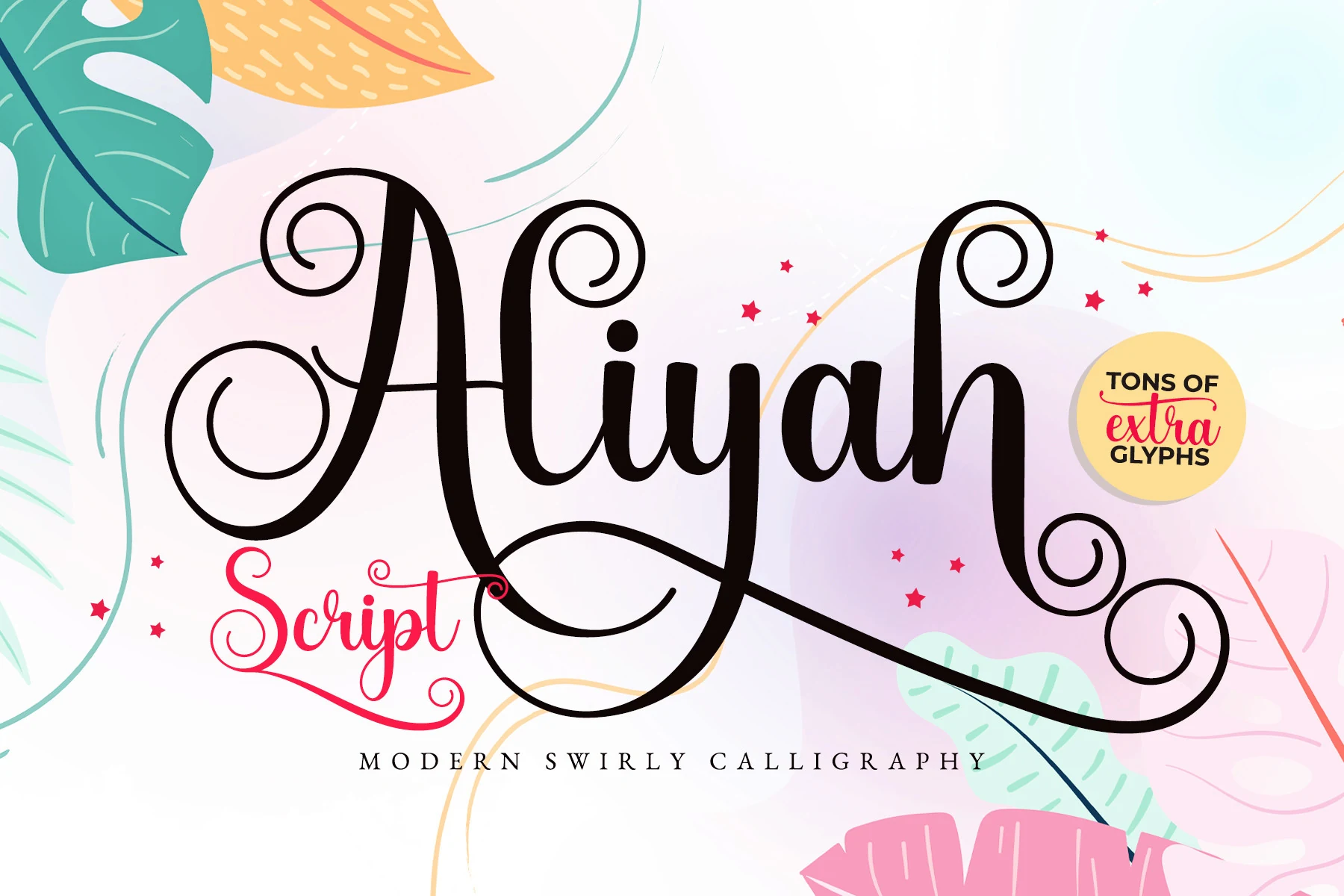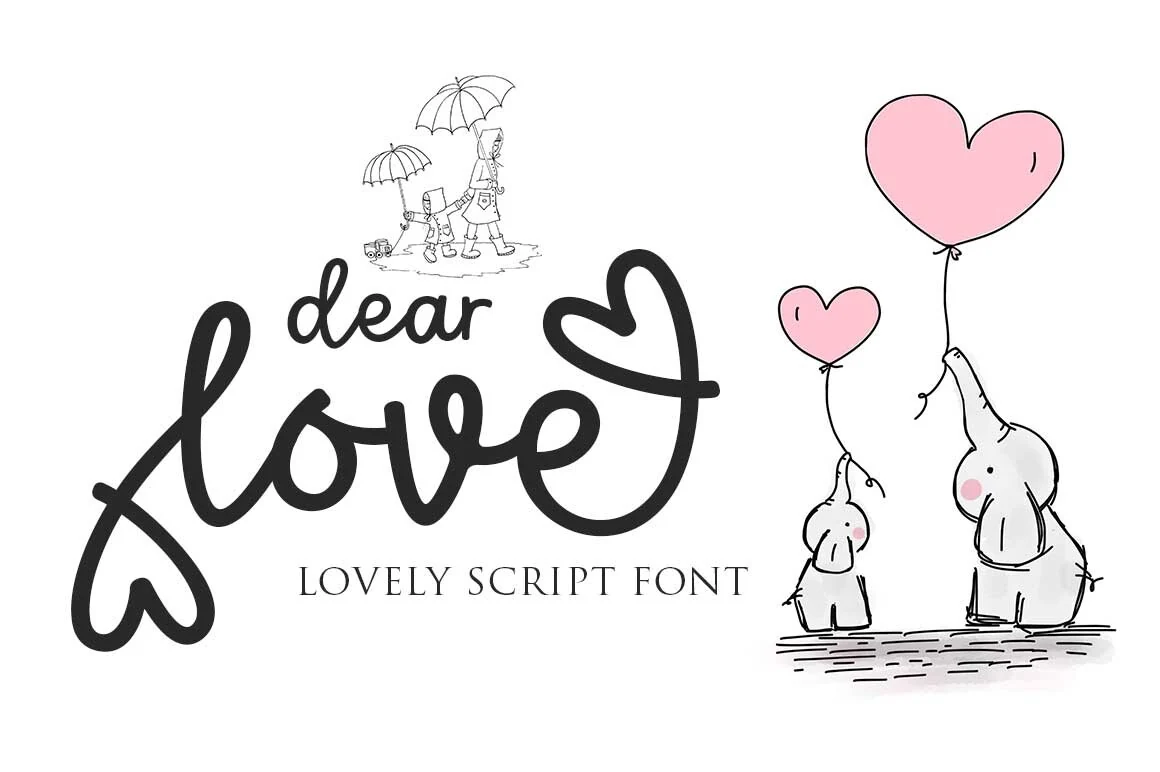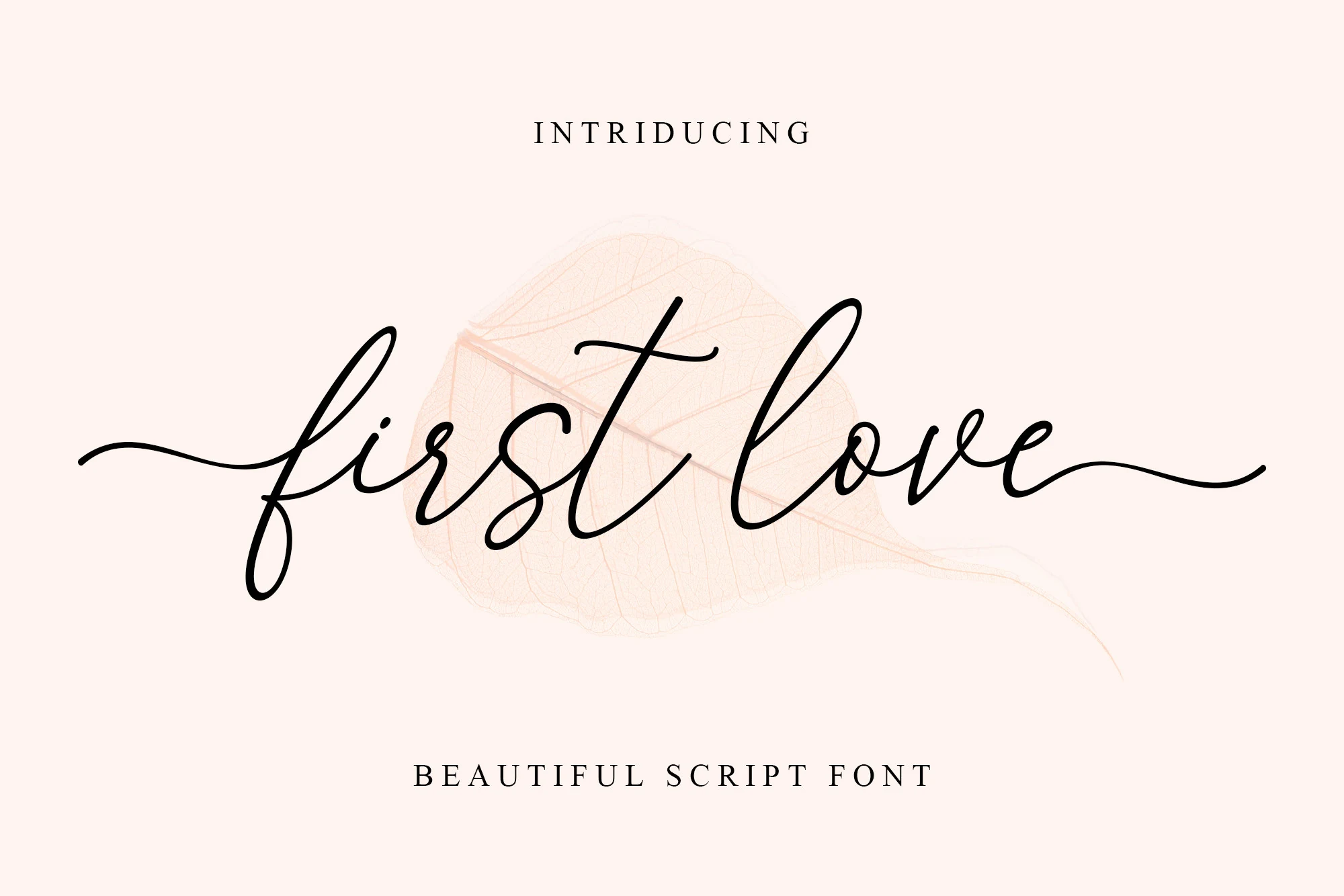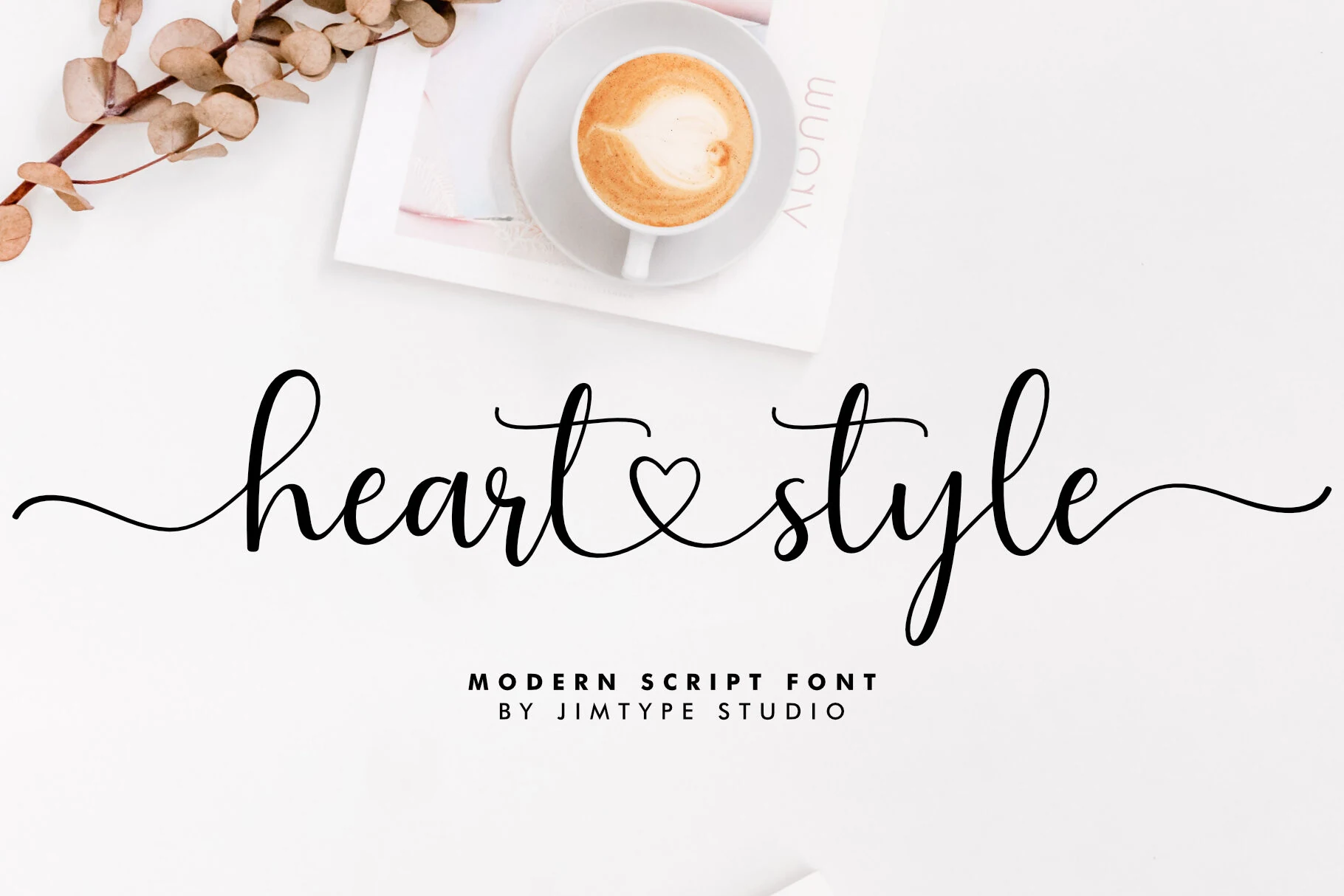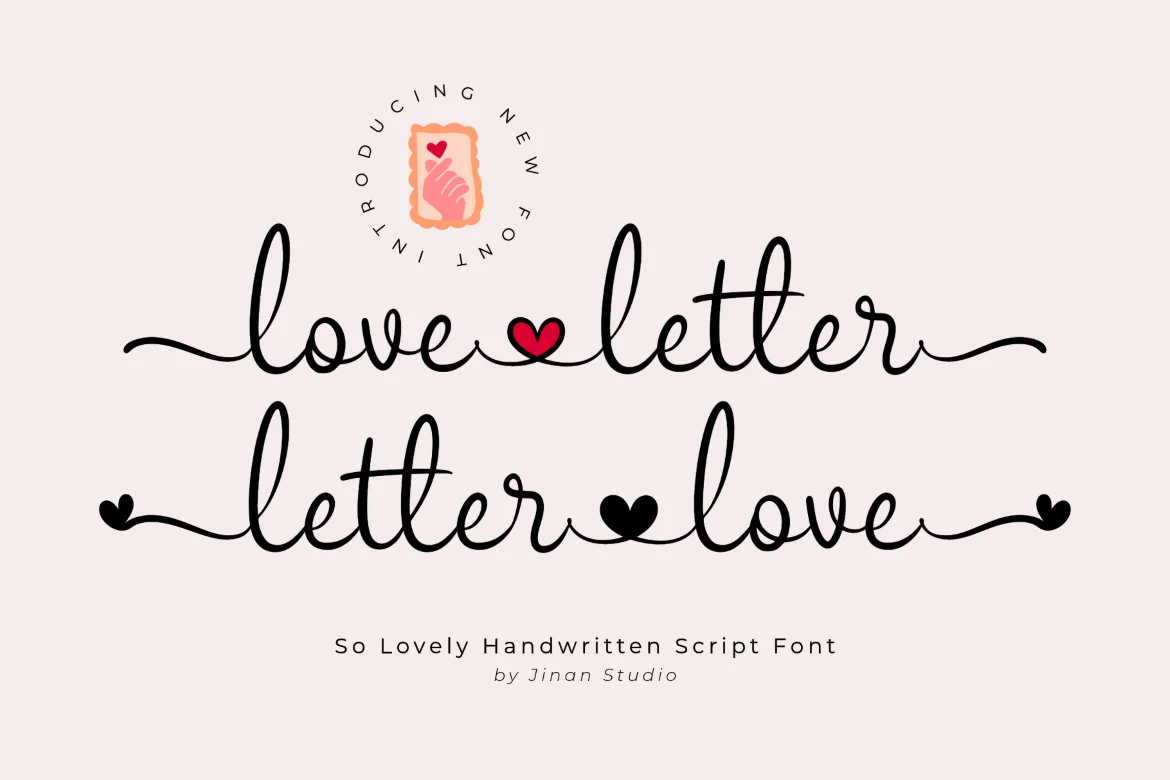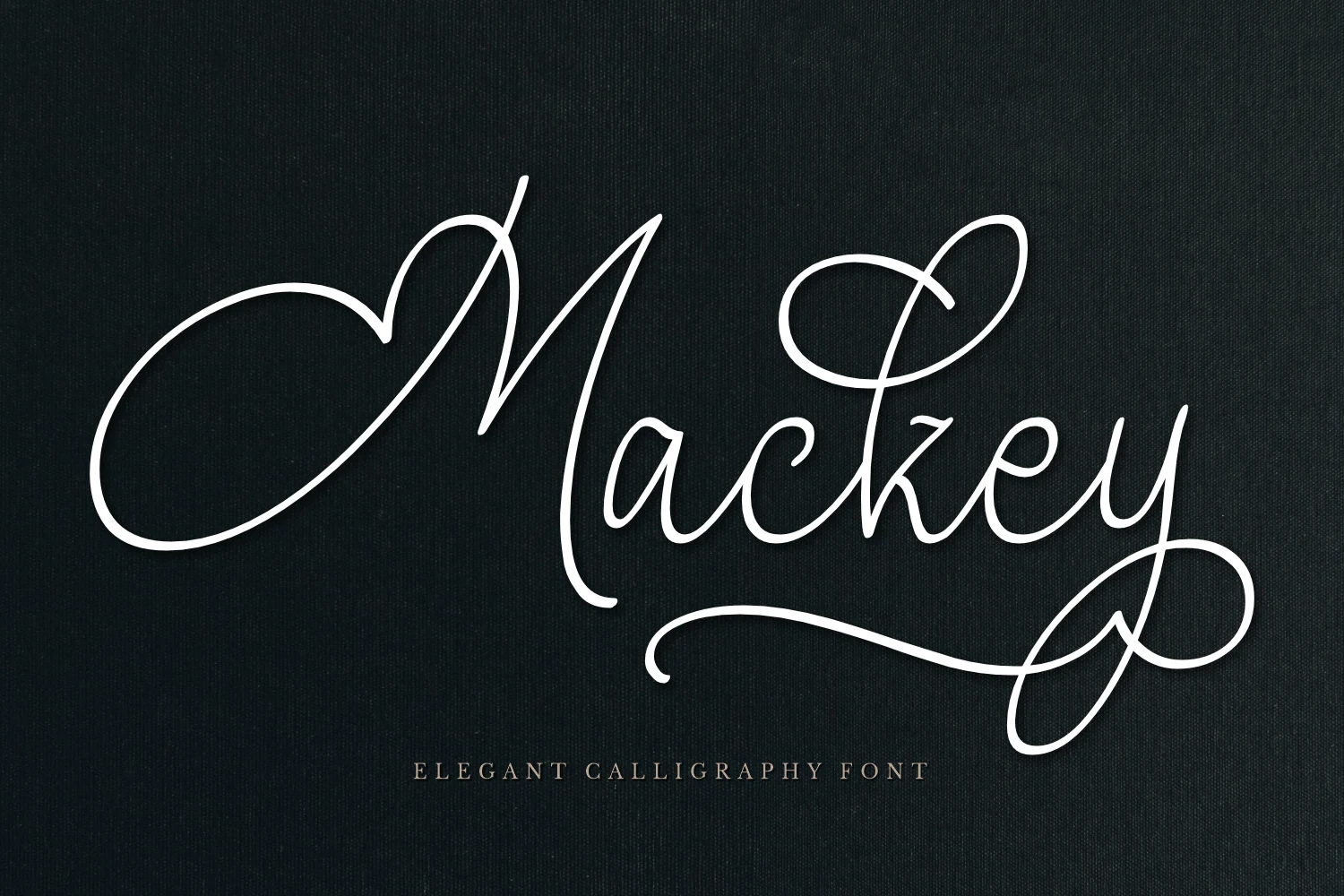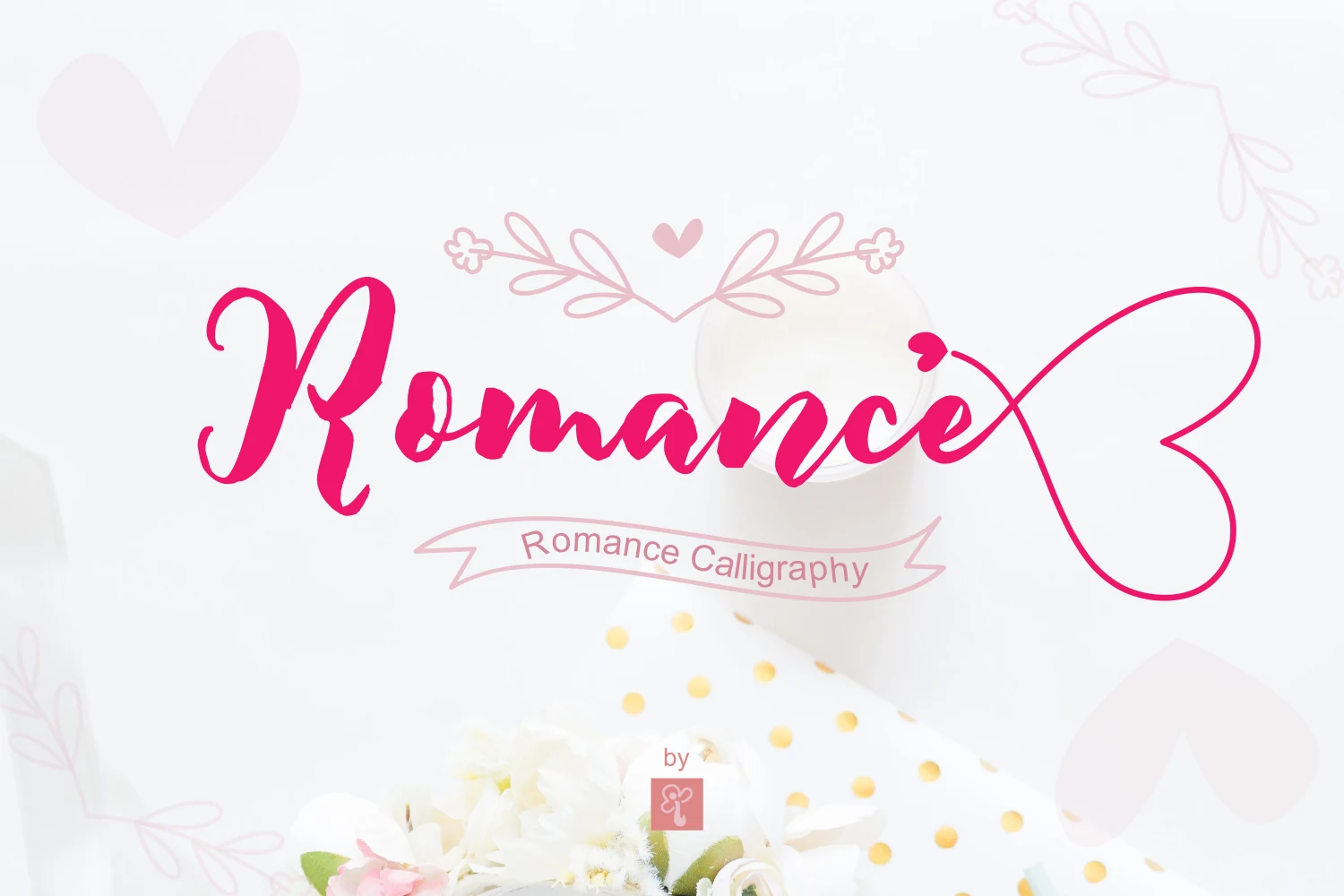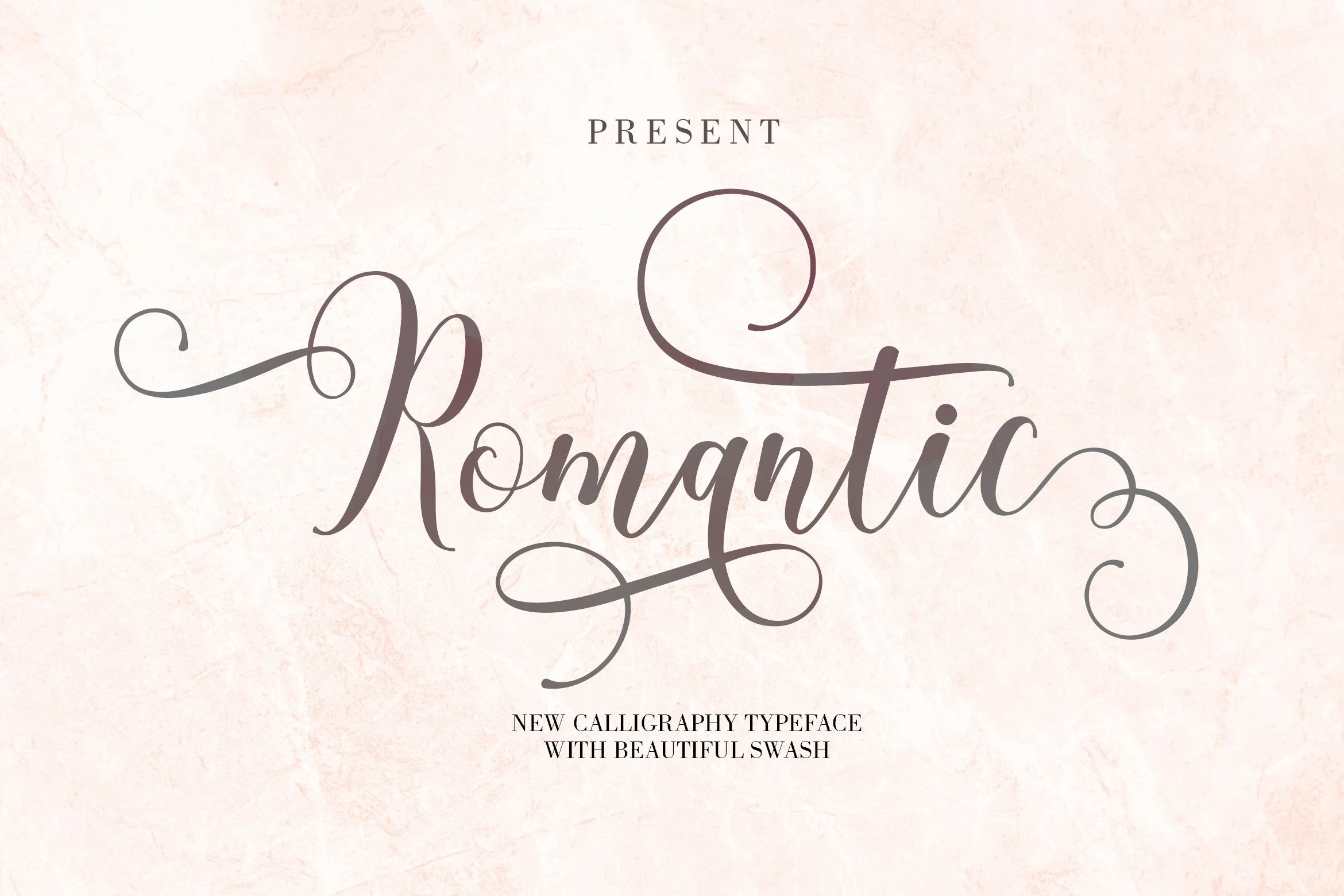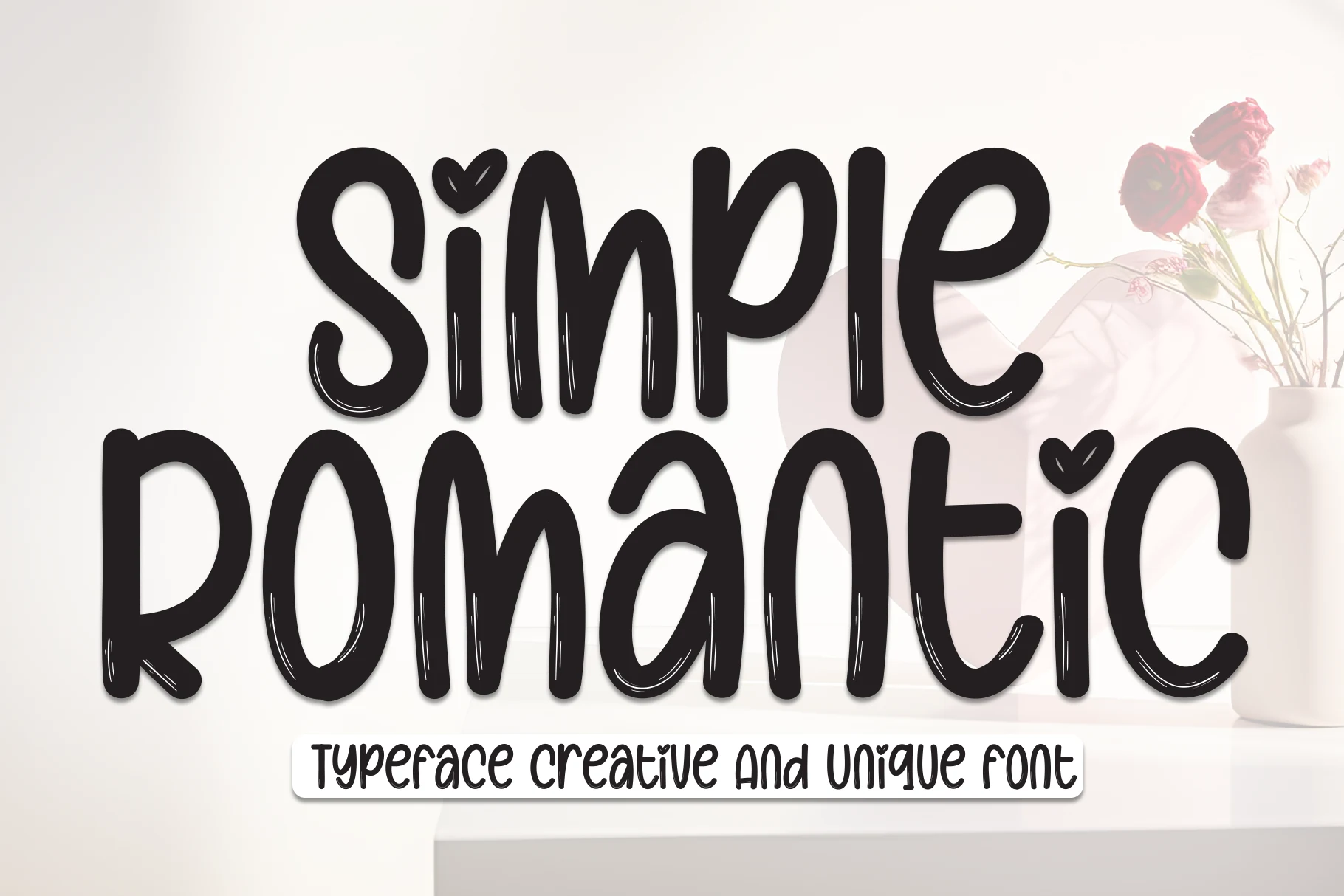
19 Romantic Wedding Fonts for Stunning Invitations
Romantic Wedding Fonts are made for designers choosing soft, elegant, or love-themed lettering for invitations, cards, logos, stationery, and wedding signage. This collection groups script, calligraphy, brush, and heart-accented fonts by visual style so you can quickly match the right romantic mood to each design.
Sweet Heart Romantic Wedding Fonts
These romantic scripts use hearts, soft loops, and playful handwritten details for affectionate cards, cute wedding accents, and love-themed display designs.
Happy Wedding Font
Happy Wedding Font preview with tall monoline script, looping swashes, and heart accents
Happy Wedding Font uses a tall monoline handwritten script with oversized loops, upright stems, and a loose baseline that keeps the lettering sweet rather than formal. The heart details and long entry strokes push it toward Romantic Wedding Fonts with a clearly decorative, display-first personality.
It works best in short names, invitation headings, card fronts, or social graphics where the swashes can become part of the composition. Keep spacing generous around the large capitals and avoid tight line breaks; the thin strokes need contrast and clean background space to stay readable.
Valentine Font
Valentine Font preview with rounded handwritten script, thick strokes, and heart accents
Valentine Font is a rounded handwritten script with a bold, friendly stroke and a flowing rhythm through the lowercase letters. The oversized heart-shaped capital and small heart terminal give Romantic Wedding Fonts a sweet decorative accent without making the word shapes too tangled.
Use it for invitation names, card titles, wall display lettering, or social graphics where the message is short and expressive. The wide opening stroke on the capital needs extra left margin, while the heavier weight works best against pale backgrounds or clean negative space for clear contrast.
Valentine Glow Font
Valentine Glow Font preview with pink connected script, heart-shaped swashes, and rounded strokes
Valentine Glow Font is a playful romantic script built around thick connected strokes, high loops, and heart-shaped swashes that behave like part of the lettering rather than separate ornaments. The rounded terminals and bouncing rhythm give Romantic Wedding Fonts a cheerful, handmade tone for affectionate display work.
Because the decorative hearts stretch beyond the word shapes, keep it to names, short headings, card fronts, or invitation accents. Let the swashes set the outer margins and avoid compressed layouts; the font reads best when the loops have space and the supporting text stays quieter.
Simple Romantic Font
Simple Romantic Font preview with thick rounded handwritten letters, brush texture, and heart accents
Simple Romantic Font has a chunky handwritten look with rounded verticals, soft bends, and small heart details worked into the letters. Its brush-style texture and uneven stroke edges make Romantic Wedding Fonts feel casual and cute rather than polished or formal.
The heavy weight suits short phrases, playful card titles, informal wedding signage, and social posts where readability matters at a glance. Keep the spacing open and pair it with a quieter small-text font, because the thick lowercase shapes can feel crowded when lines are packed too tightly.
Love Letter Font
Love Letter Font preview with flowing black handwritten script, long swashes, and heart accents
Love Letter Font is a light handwritten script with smooth monoline strokes, tall looping ascenders, and heart details placed directly into the connecting lines. The long horizontal swashes give Romantic Wedding Fonts a sweet lettered look while keeping the main word shapes clean and readable.
It suits invitation headers, envelope-style graphics, romantic notes, and short quote layouts where the extended strokes can frame the text. Keep the composition wide rather than tall, since the opening and closing swashes need room to stretch without crowding the words above or below.
My Love Font
My Love Font preview with pink calligraphy script, a heart swash, and long flowing strokes
My Love Font uses a slim modern calligraphy style with bright, flowing strokes and a heart-shaped connector between the words. The long entry and exit lines give Romantic Wedding Fonts a light romantic frame, while the lowercase forms stay simple enough for short phrases to read cleanly.
It works best on wedding invitation details, greeting cards, social media headers, and stationery-style layouts where the heart swash can become the focal point. Keep the surrounding type restrained and leave horizontal space on both sides so the thin strokes do not feel crowded or clipped.
Dear Love Font
Dear Love Font preview with thick black script lettering and a heart-shaped swash
Dear Love Font has a thick casual script style with rounded joins, soft loops, and a heart-shaped swash worked directly into the lettering. It sits on the sweeter side of Romantic Wedding Fonts, with enough weight for cheerful headlines, romantic packaging, and short quote layouts.
The bold stroke makes the word shapes easy to catch at display size, but the oversized loops and love-themed swashes need clear spacing around them. Use it for names, labels, signage, cards, and invitation accents where one expressive word can lead the composition without competing with dense supporting text.
Elegant & Flowing Romantic Wedding Fonts
These lighter scripts focus on slim strokes, graceful movement, and open spacing for refined invitations, stationery headers, and elegant romantic branding.
Romantic Ending Font
Romantic Ending Font preview with slanted signature script, flowing curves, and fine terminals
Romantic Ending Font has the feel of a quick signature script, with slanted letters, sweeping capitals, and narrow joins that keep the words moving. Its fine terminals and light contrast give Romantic Wedding Fonts a clean, intimate tone without turning the lettering overly ornate.
The font is strongest in names, invitation titles, greeting card lines, and short romantic phrases where the curves can read as a single gesture. Use moderate tracking and avoid stacking tight lines, because the long strokes on the capitals need clear space around them to keep the composition balanced.
Sunlightter Font
Sunlightter Font preview with white calligraphy script, long swashes, and fine flowing strokes
Sunlightter Font leans into modern calligraphy, with a dramatic oversized capital, fine flowing strokes, and long horizontal swashes that pull the wordmark across the layout. Its loose cursive rhythm gives Romantic Wedding Fonts a refined, airy mood without making the lowercase forms too crowded.
Use it for wedding invitation names, RSVP headings, thank-you notes, branding marks, or decor quotes where one line can act as the focal point. Leave generous side and bottom margins for the initial loop and underline; cropping those strokes makes the composition look accidental.
The Wedding Font
The Wedding Font preview with slim handwritten script, tall ascenders, and a flowing baseline
The Wedding Font has a casual handwritten script style with slim strokes, tall ascenders, and a loose forward movement across the word. Its sharp capital forms and open letter spacing keep Romantic Wedding Fonts looking light and personal rather than heavily ornamental.
Use it for invitation headings, wedding stationery, social media posts, or short decorative lines where the uneven handwritten rhythm can stay visible. The thin strokes need clean contrast, and the high letters work best with enough vertical space so the title does not feel squeezed.
First Love Font
First Love Font preview with thin flowing script, long swashes, and smooth letterforms
First Love Font has a delicate modern script shape, with thin connected strokes, tall loops, and long entry and exit swashes that stretch the word into a graceful horizontal line. Its smooth rhythm gives Romantic Wedding Fonts a restrained, intimate feel rather than a heavily decorated look.
Use it for invitation names, logo marks, social media headers, or short elegant phrases where the lettering can stay open and airy. The fine stroke weight needs strong contrast, and the wide flourishes should define the margins instead of being cropped or squeezed into narrow layouts.
Heart Style Font
Heart Style Font preview with black modern script, long swashes, and a heart connector
Heart Style Font is a modern script with tall ascenders, smooth connected strokes, and a heart-shaped connector placed between the words. The long entry and exit swashes stretch the line horizontally, giving Romantic Wedding Fonts a clean romantic accent without dense ornament.
It suits wedding invitations, heartfelt messages, logo branding, and stationery headers where one phrase can anchor the page. Use wide margins and strong contrast, especially around the thin swash lines; the heart detail works best when supporting text is kept smaller and more neutral.
Mackey Font
Mackey Font preview with thin white calligraphy, tall loops, and long swashes
Mackey Font has a thin monoline calligraphy structure with tall ascenders, narrow joins, and large looping swashes that pull the eye across the word. Its airy rhythm gives Romantic Wedding Fonts a more fashion-led look, especially when the lettering sits against strong contrast or textured backgrounds.
The long entry and exit strokes are the main design feature, so it works best for names, invitation headers, beauty marks, cards, and Valentine’s layouts where a single word can carry the composition. Keep secondary text compact and well separated; the swashes need open margins to avoid crowding the smaller letterforms.
Bold Brush Romantic Wedding Fonts
These heavier romantic fonts use thick strokes, brush texture, and strong display shapes for logos, banners, invitation headlines, and high-impact card designs.
Romance Script Font
Romance Script Font preview with bold red handwritten script and a long underline swash
Romance Script Font has a full, rounded handwritten style with broad strokes, soft curves, and a large capital that gives the wordmark immediate weight. Its connected rhythm and extended underline swash make Romantic Wedding Fonts feel warm and expressive without relying on thin, fragile calligraphy.
This works well for invitation headers, thank you cards, quotes, logos, and business cards where one short phrase needs to carry the layout. Give the baseline flourish enough room below the text and avoid narrow crops, because the long descender loop is part of the font’s visual balance.
Romance Font
Romance Font preview with bright pink brush script, textured strokes, and a heart-shaped swash
Romance Font uses a lively brush-script style with rough inner texture, bold pressure changes, and a large heart-shaped flourish extending from the final stroke. Its energetic movement gives Romantic Wedding Fonts a brighter, more expressive tone than a fine-line calligraphy script.
It fits short names, card titles, invitation accents, and feminine branding where the lettering can act as the main graphic element. PUA encoding helps access the extra glyphs and swashes, useful when adjusting the final stroke or building a more customized romantic wordmark.
Love Font
Love Font preview with bold black handwritten script, rounded loops, and thick strokes
Love Font uses a heavy handwritten script with smooth curves, rounded joins, and a tall looping capital that gives the wordmark immediate display weight. It brings Romantic Wedding Fonts into a simpler, bolder direction, with less fine ornament and more clean visual impact.
The thick stroke holds up well for cover logos, banners, crafts, and invitation headlines, especially when the surrounding layout stays light. Keep the word count short and avoid squeezing the letters too tightly; the large loops and dense black forms need contrast and open spacing to stay polished.
Ornate Calligraphy Romantic Wedding Fonts
These decorative calligraphy styles use dramatic swashes, formal loops, and ornamental curves for statement names, monograms, headlines, and luxury wedding pieces.
Love Bird Font
Love Bird Font preview with black calligraphy script, long swashes, and a heart accent
Love Bird Font is a sweet calligraphy script with smooth connected strokes, dancing lowercase forms, and long horizontal swashes that frame the word from both sides. The central heart accent gives Romantic Wedding Fonts a soft decorative point without overwhelming the clean rhythm of the letters.
Use it for logos, invitation titles, signage, labels, posters, or short romantic headings where the baseline flourish can shape the layout. Keep surrounding text compact and simple, then leave extra width for the opening and closing swashes so the lettering does not feel clipped.
Romantic Font
Romantic Font preview with gray calligraphy script, thin curls, and large decorative swashes
Romantic Font moves like a formal calligraphy wordmark, with slim-to-broad pressure shifts, high loops, and exaggerated curls on the capital and final stroke. The large swashes give Romantic Wedding Fonts a dramatic, handwritten mood that feels more ornamental than casual.
Use it for greeting cards, headlines, invitation titles, or short romantic phrases where one word can carry the page. Keep the layout wide and avoid tight crops; the upper curl and lower loop need clear space so the flourishes look intentional rather than crowded.
Aliyah Script Font
Aliyah Script Font preview with bold looped calligraphy swashes and thin curls
Aliyah Script Font is built around oversized looped capitals, firm vertical downstrokes, and thin curling hairlines that give each word a decorative calligraphy rhythm. The long swashes make it feel ornate and romantic without looking soft or childish, which suits Romantic Wedding Fonts aimed at statement headings rather than body copy.
Use it where the lettering can be the main ornament: invitation names, monograms, save-the-date headers, or social graphics. Keep surrounding text restrained and increase spacing around the swirls so the loops do not collide with secondary type; its PUA encoding helps access extra glyphs and swashes for more controlled flourishes.
Conclusion
Choose sweet heart scripts for cute romantic accents, elegant flowing fonts for refined wedding stationery, bold brush styles for stronger display work, and ornate calligraphy when the lettering needs to become the main decorative feature.